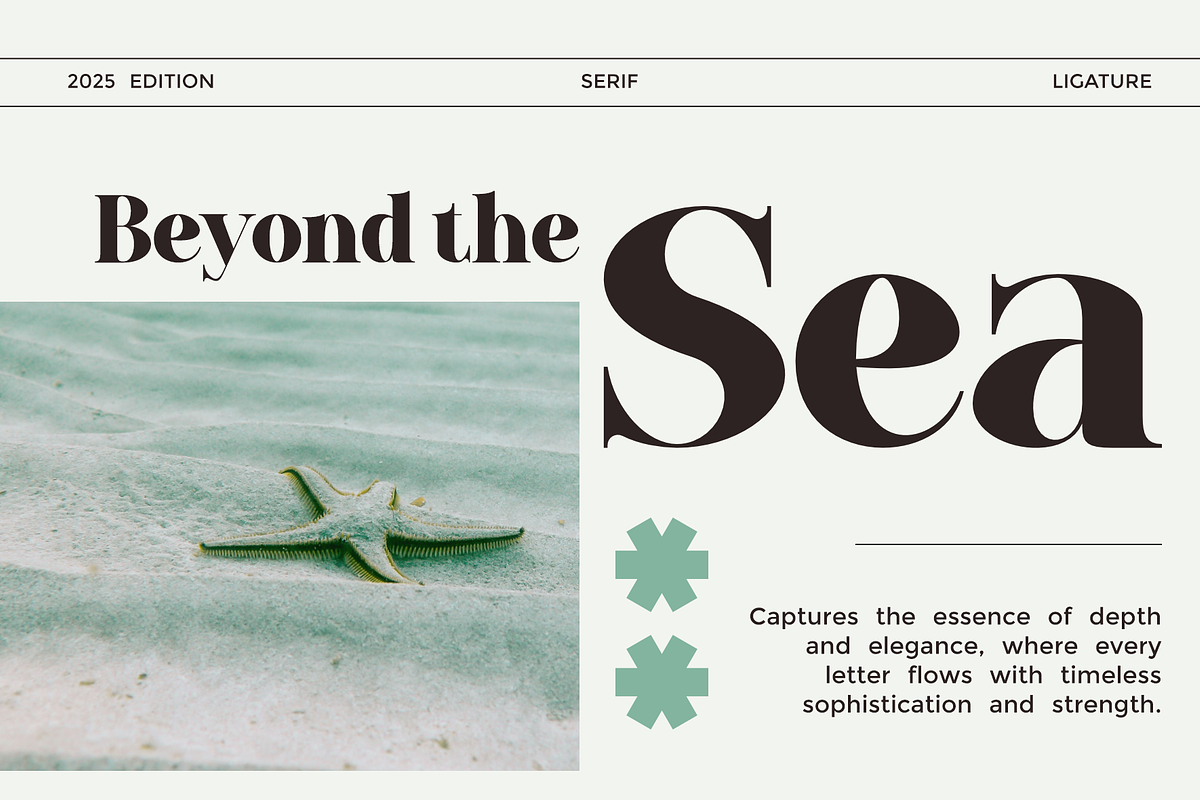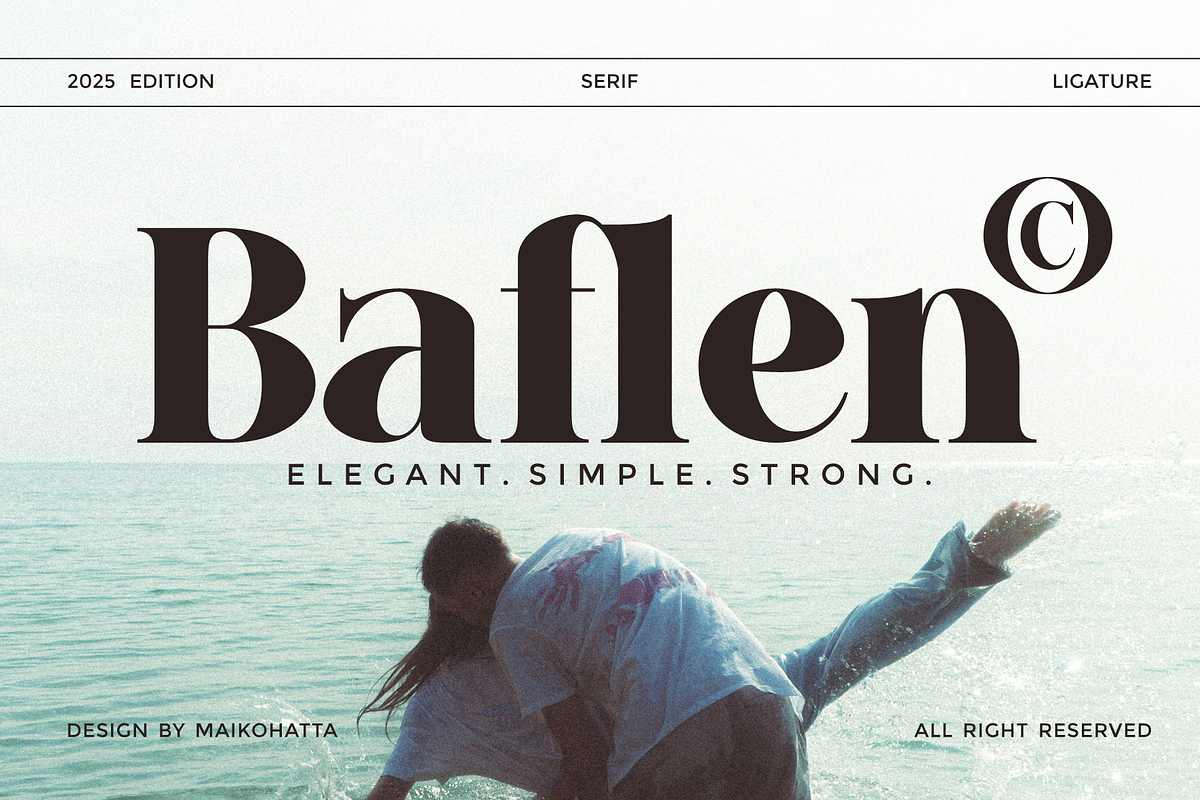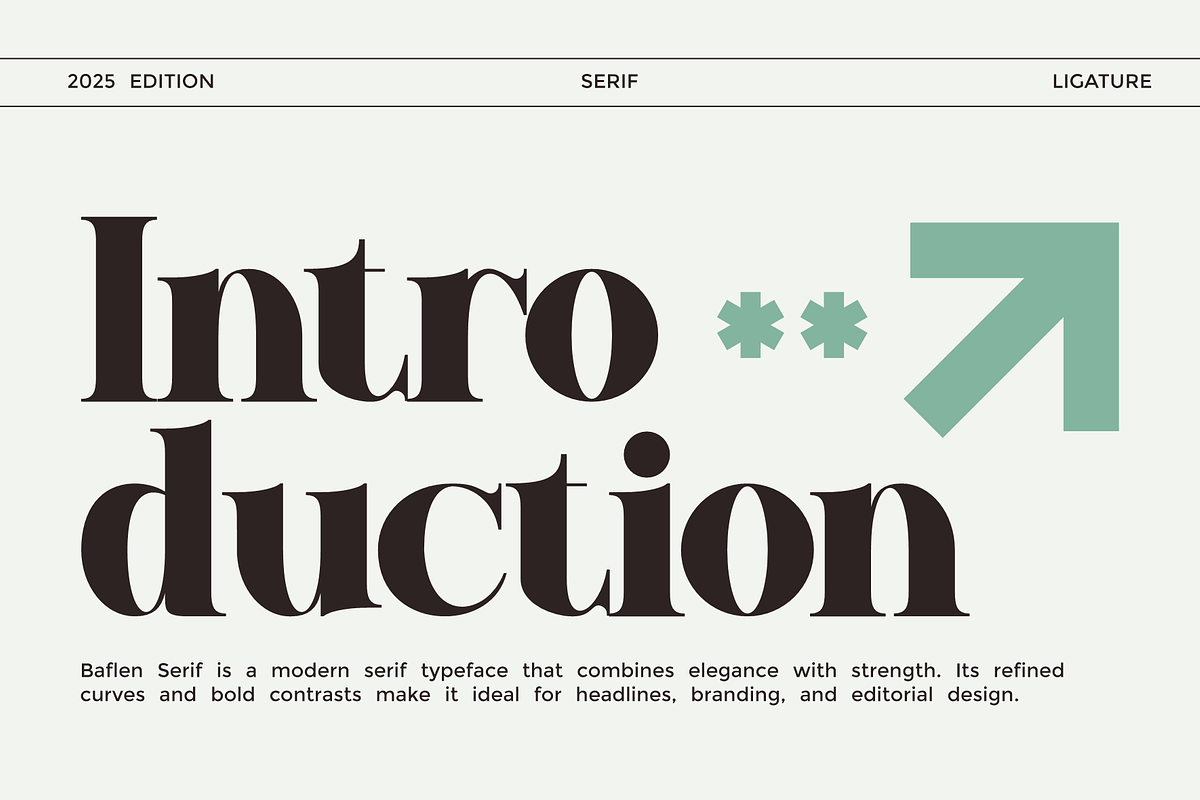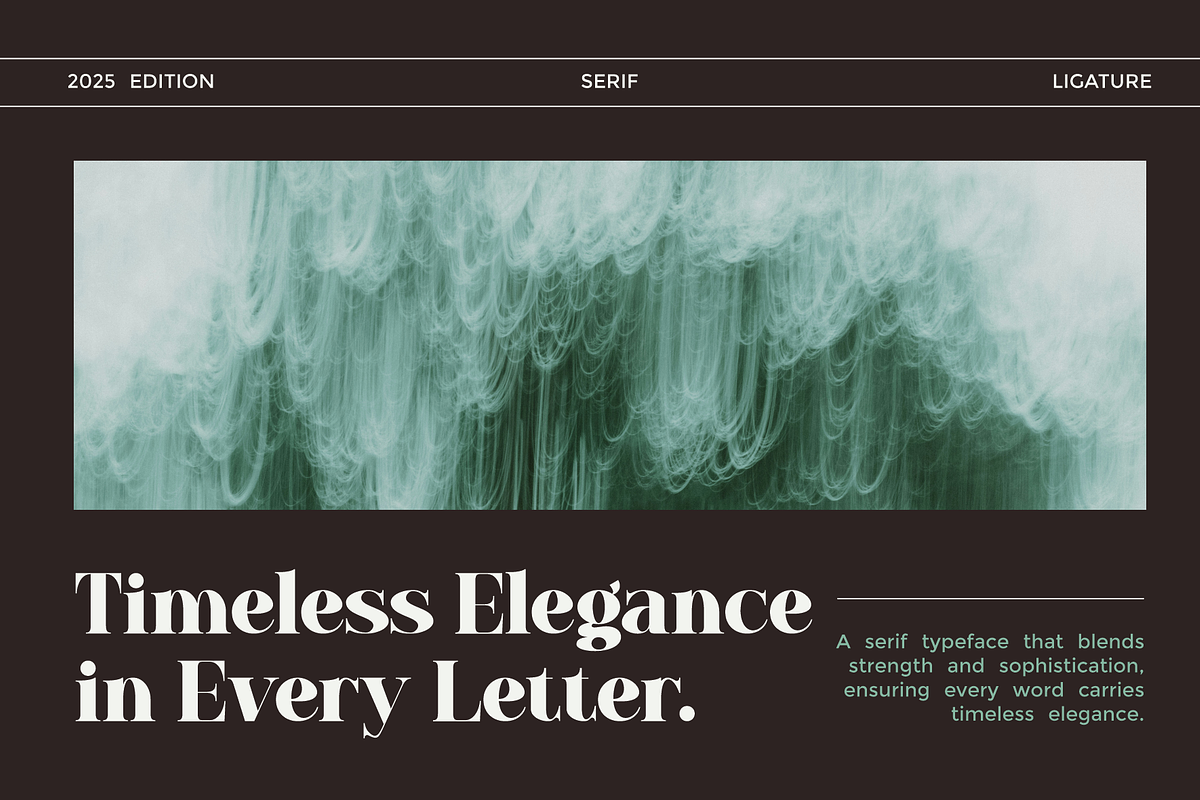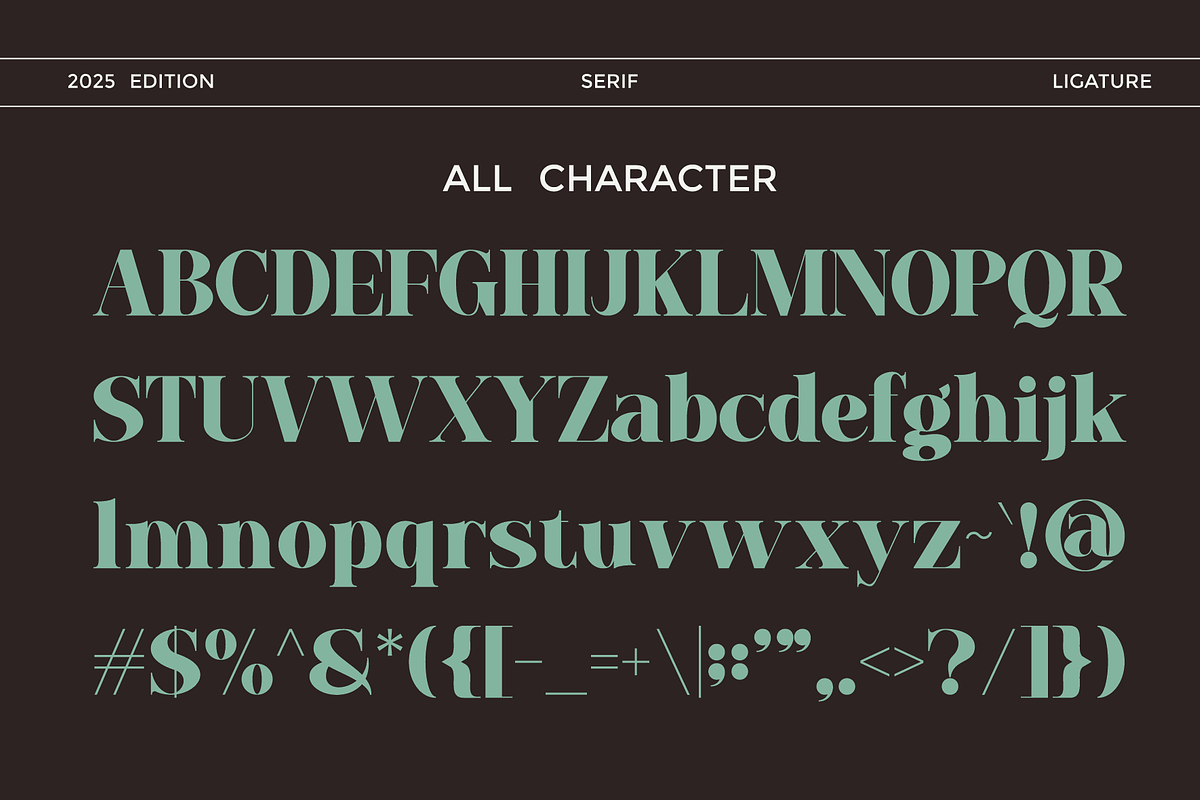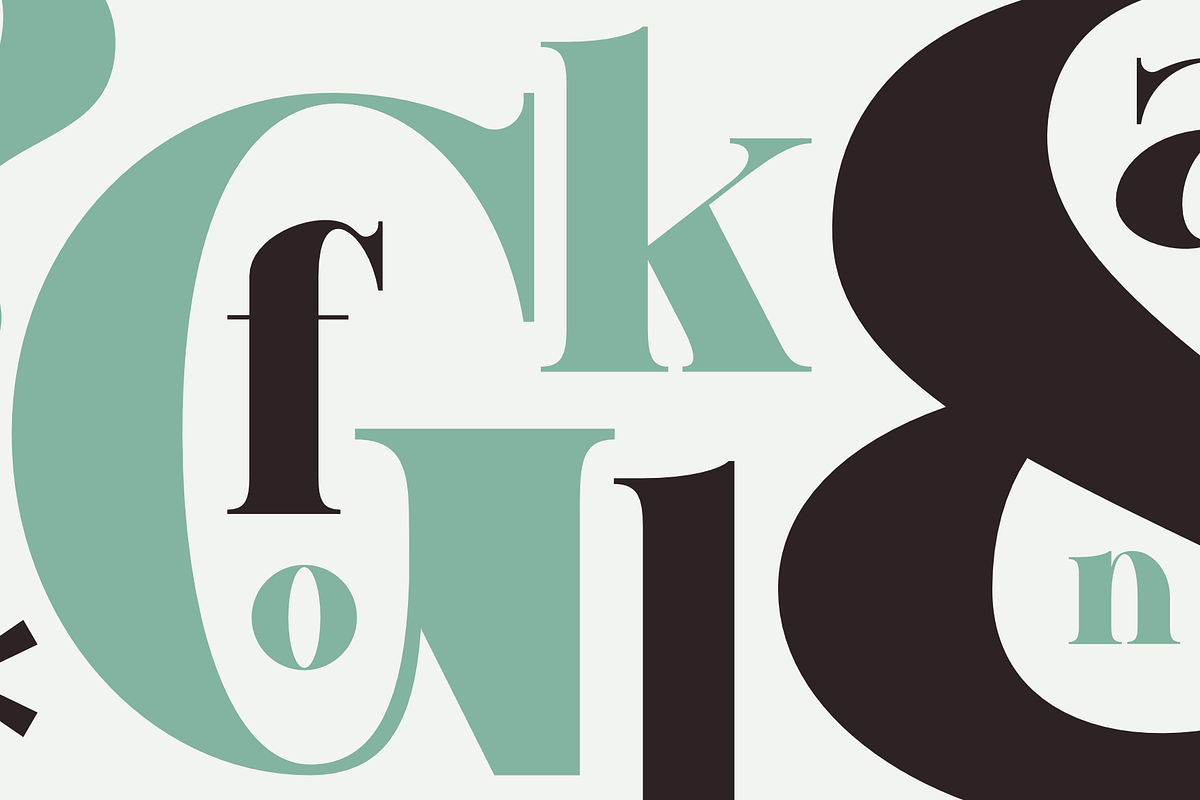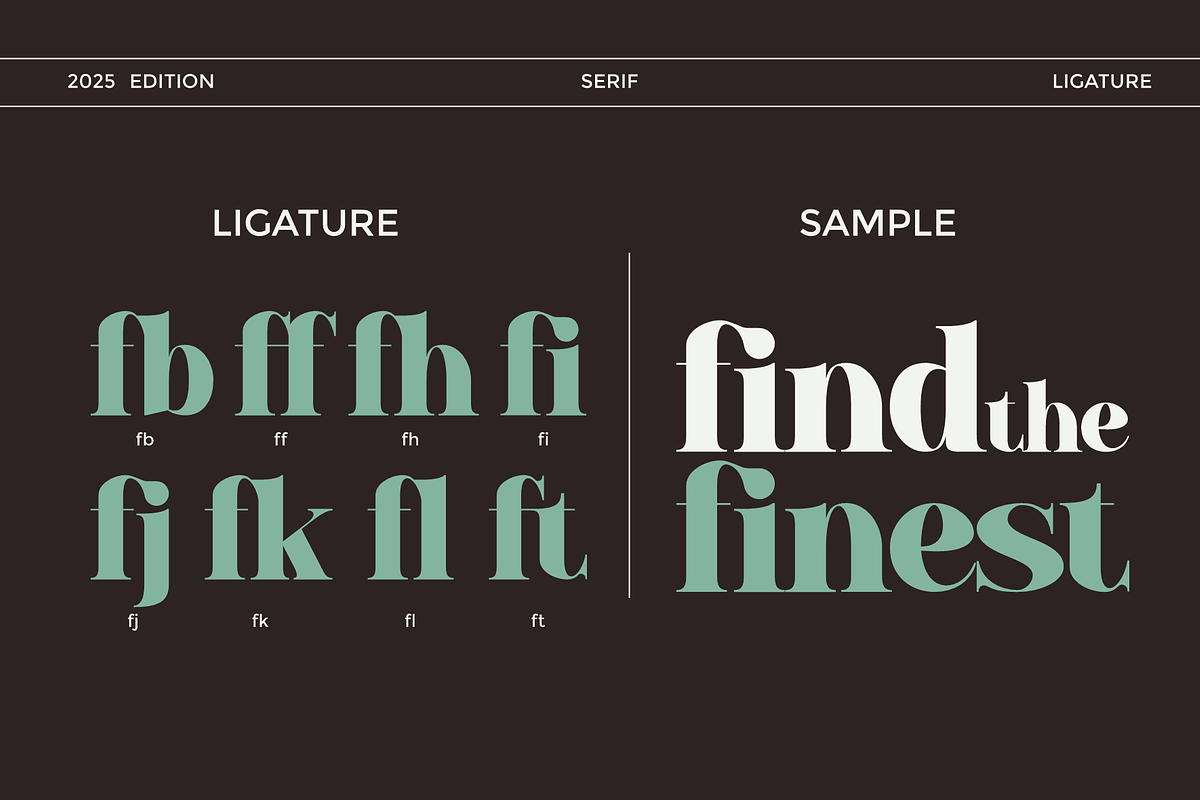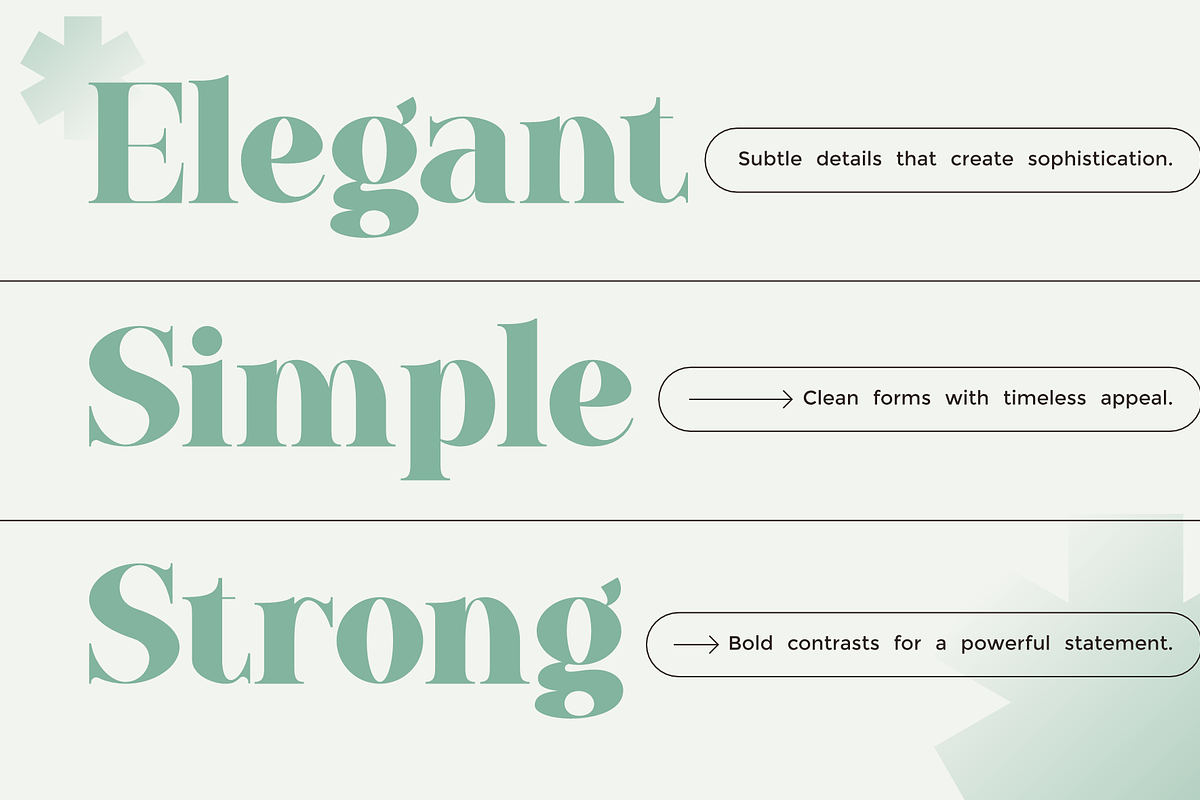
Baflen - Modern Serif Typeface
Baflen is an elegant serif typeface that blends modern sophistication with timeless strength. Its bold letterforms feature graceful curves, high contrast strokes, and refined serifs, creating a sense of both simplicity and power. Designed with attention to balance and proportion, Baflen stands out in branding, editorial, and headline design, offering versatility through its stylish ligatures and distinctive details. Perfect for projects that demand elegance, minimalism, and authority, this font embodies the motto “Elegant. Simple. Strong.”